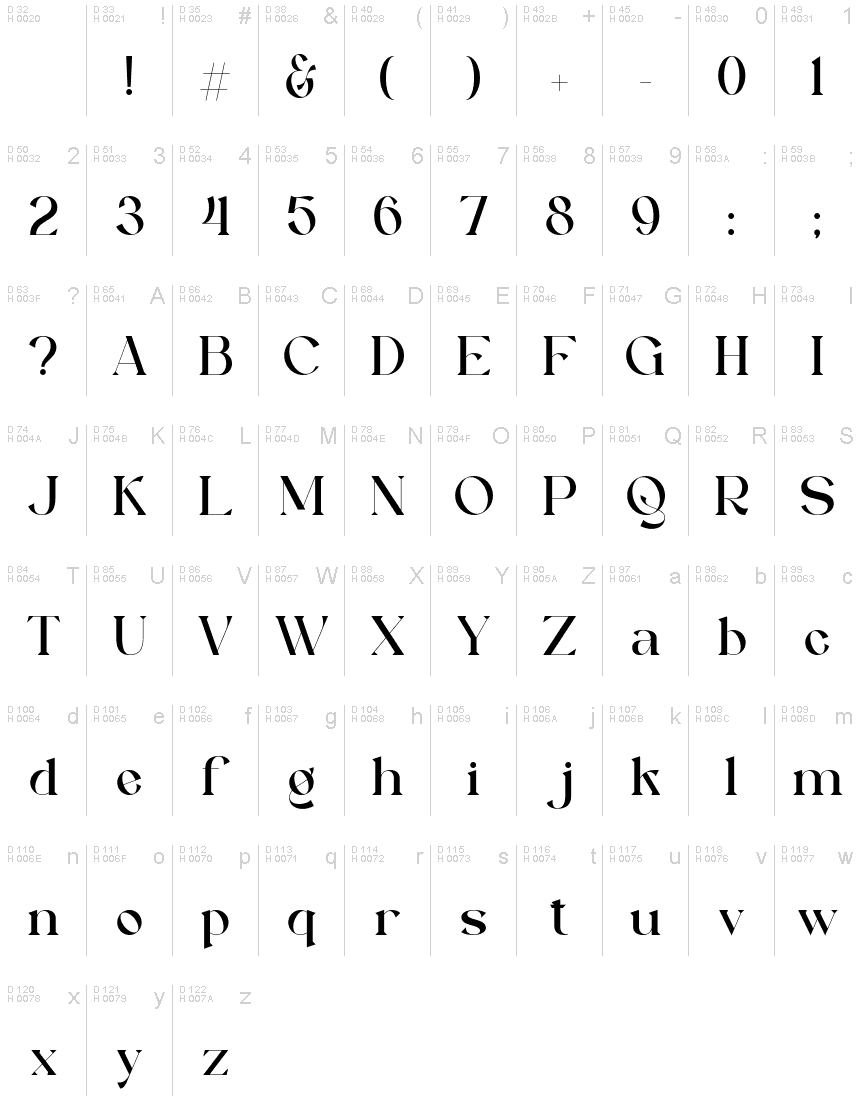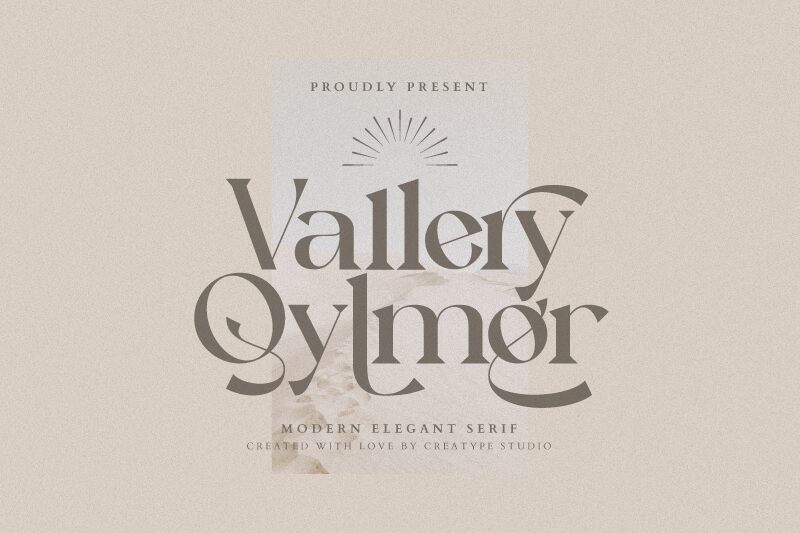
Vallery Qylmor Regular
Vallery Qylmor is a light serif font designed by Rian Rahardi. It is perfect for creating elegant and professional designs such as stylish books, luxury magazines, and sophisticated wedding invitations. Its subtle curves and delicate lines bring sophistication to any project.